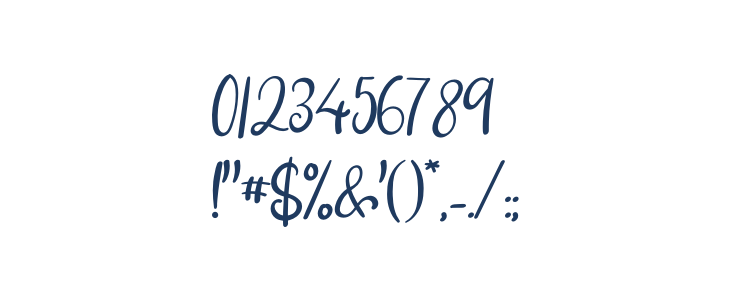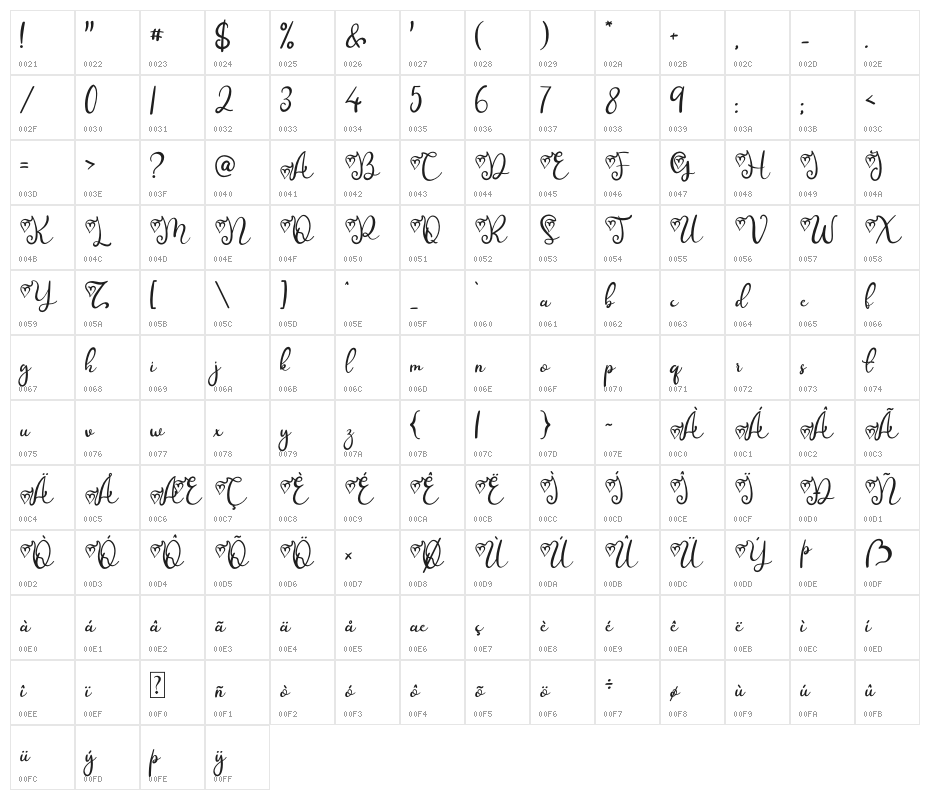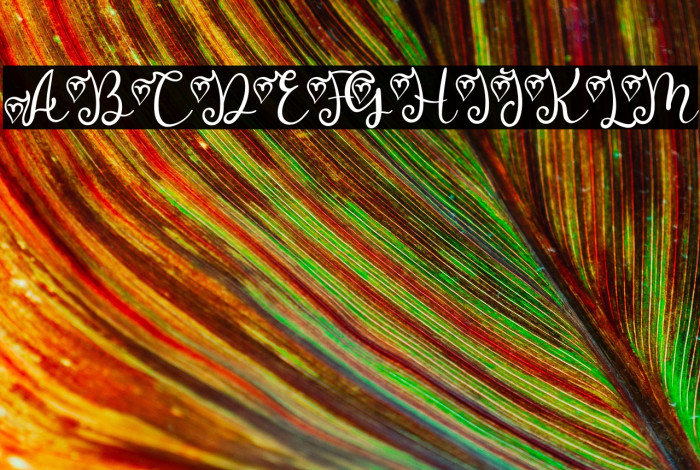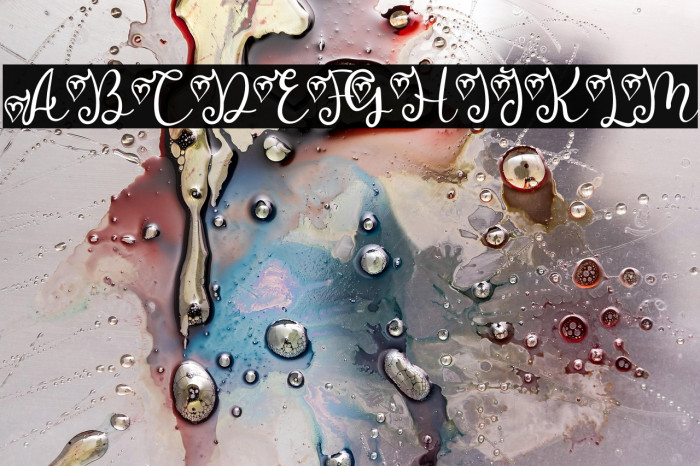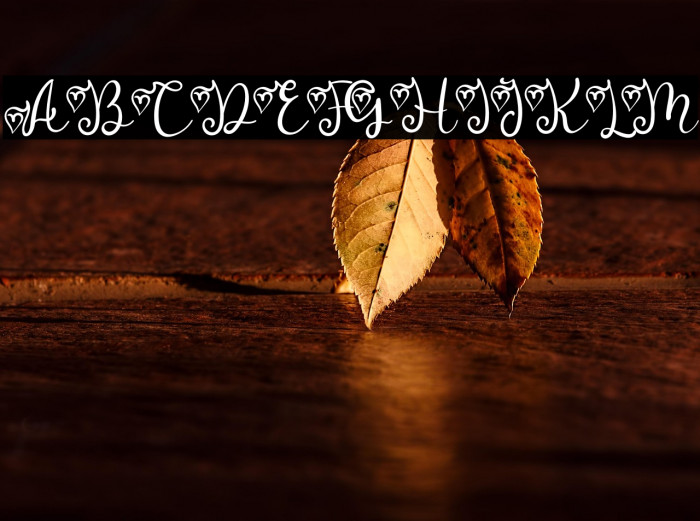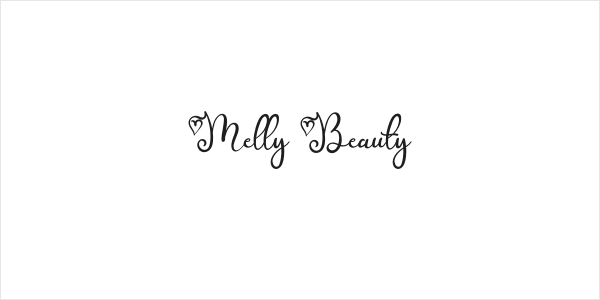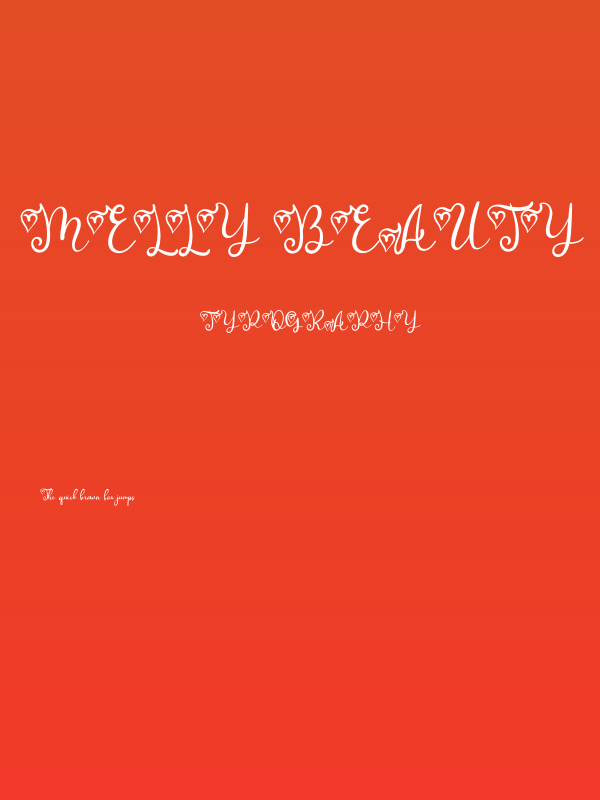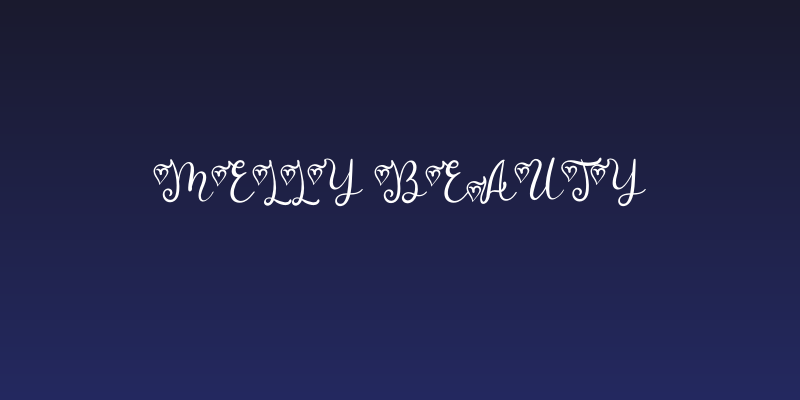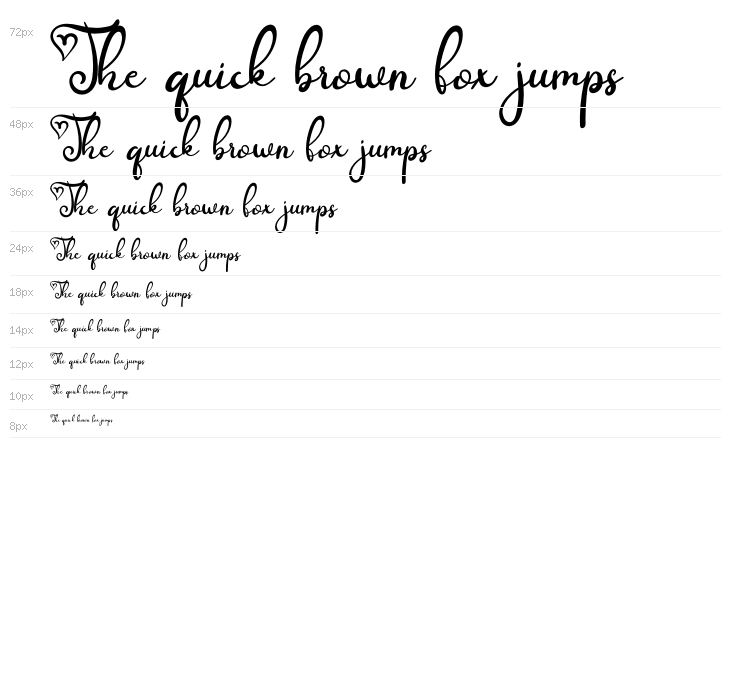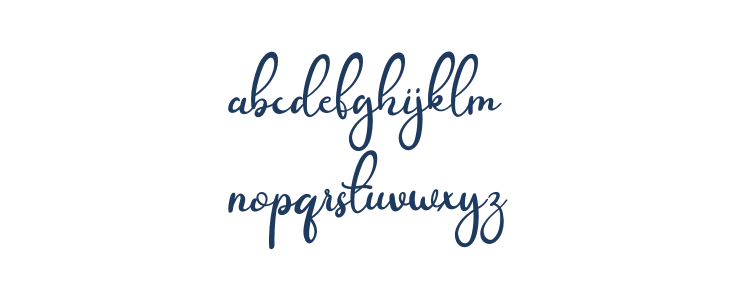
Melly Beauty Font
Melly Beauty Description
This font features a playful and romantic style, characterized by its decorative heart motifs integrated into the uppercase letters. The lowercase letters exhibit a smooth, flowing script style, adding a touch of elegance and whimsy. The numerals and special characters maintain a consistent, cohesive look with the rest of the font, ensuring versatility across different uses. The overall design is both charming and sophisticated, making it suitable for a variety of creative projects.
| Overall Style | Romantic, Playful |
| Use Case | Headlines, Invitations, Greeting Cards |
| Proposed Projects | Ideal for wedding invitations, greeting cards, romantic-themed branding, and playful design projects. |